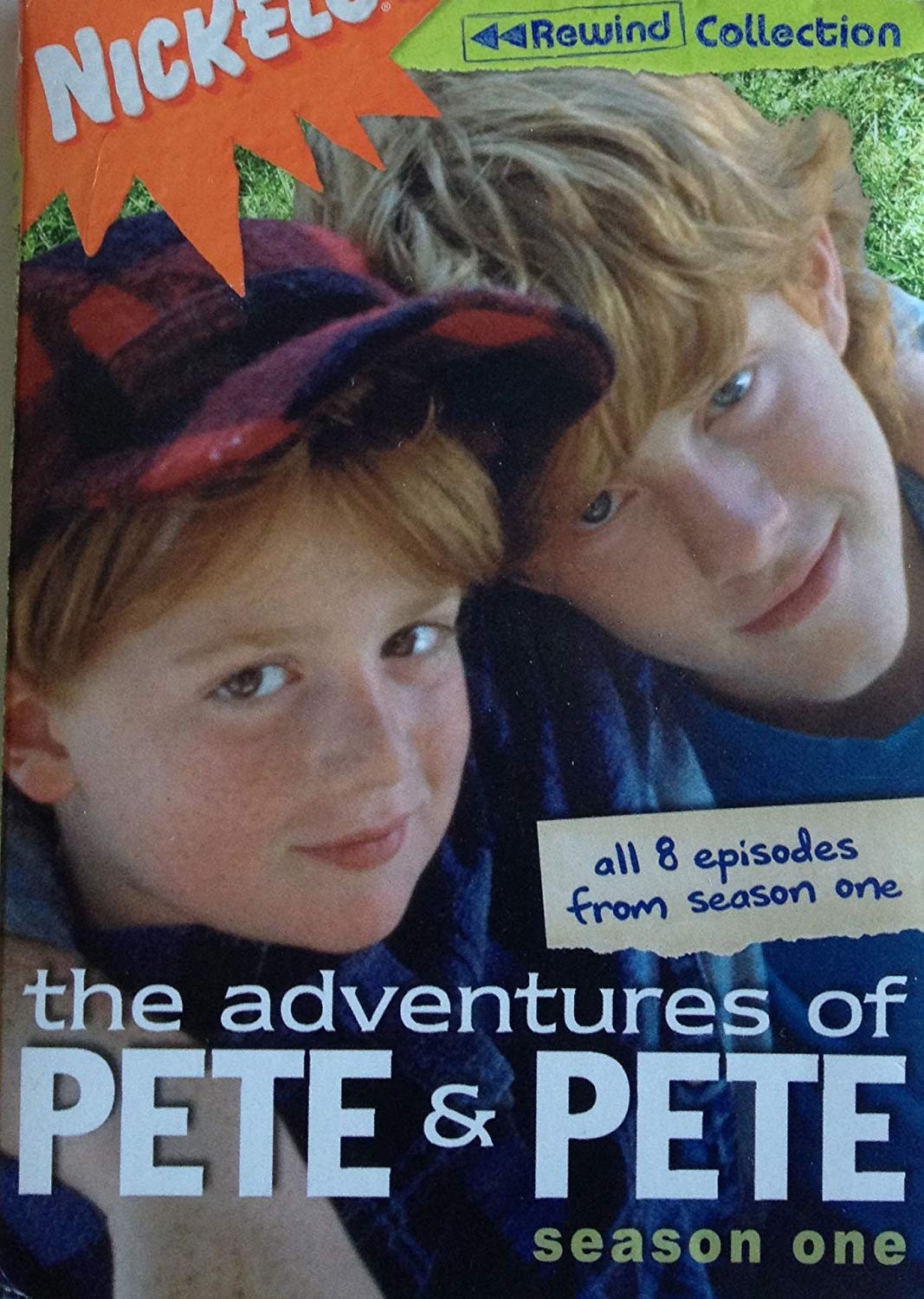
The Adventures of Pete & Pete Font
ComedyThe Adventures of Pete & Pete was a Nickelodeon TV series that ran from 1993-1996. It followed the adventures of two brothers, Pete and Pete, as they navigate through the eccentricities of their hometown and their everyday lives.
The Series title on the poster use a combination of two fonts; "the adventures of" part of the title is very similar to Newtext by Ray Baker and The “PETE PETE” part is most probably set in Franklin Gothic Condensed by Morris Fuller Benton.